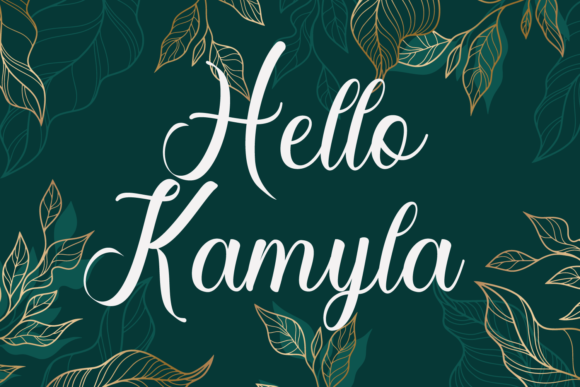
Introducing Hello Kamyla Font, an Enchanting Decorative Jewel for Your Design Arsenal!
Dive into the realm of creativity with Hello Kamyla, an enticing script font that captures the essence of elegance and artistic flair. With its graceful ornaments and organic flow, this font is a true masterpiece, tailored to elevate your design projects to new heights of sophistication.
Unleash Your Artistic Vision:
Hello Kamyla is an artist's dream, a font that complements a myriad of creative endeavors. Whether you're a seasoned designer or just starting, this font is your gateway to unlocking a world of design possibilities. Perfect for branding, social media graphics, wedding invitations, and more, Hello Kamyla adds a touch of magic to every project you undertake.
Step into a World of Elegance:
Experience the allure of Hello Kamyla and be captivated by its enchanting beauty. Each letter, meticulously crafted, exudes a timeless charm that will leave your audience spellbound. With its intricate details and flowing curves, this font exudes a unique grace that sets it apart from the ordinary.
Why Choose Hello Kamyla?
- Timeless Appeal: Hello Kamyla transcends trends and fads, offering a classic elegance that will endure for years to come. Its timeless beauty ensures that your designs remain captivating and relevant, leaving a lasting impression on your audience.
- Versatility Personified: Hello Kamyla is a font that knows no bounds. Its adaptability shines across a wide range of design projects, seamlessly blending with various themes and styles. Unleash your creativity and explore the endless possibilities that await.
- A Creative Spark: Hello Kamyla ignites the flame of creativity, inspiring you to explore uncharted design territories. Its captivating nature encourages you to push boundaries and craft designs that are truly unique and unforgettable.
Elevate Your Design Game:
With Hello Kamyla, mediocrity becomes a distant memory. This font elevates your designs to new realms of beauty and sophistication, setting you apart from the crowd. Embrace the power of Hello Kamyla and witness the transformation of your designs into captivating works of art.